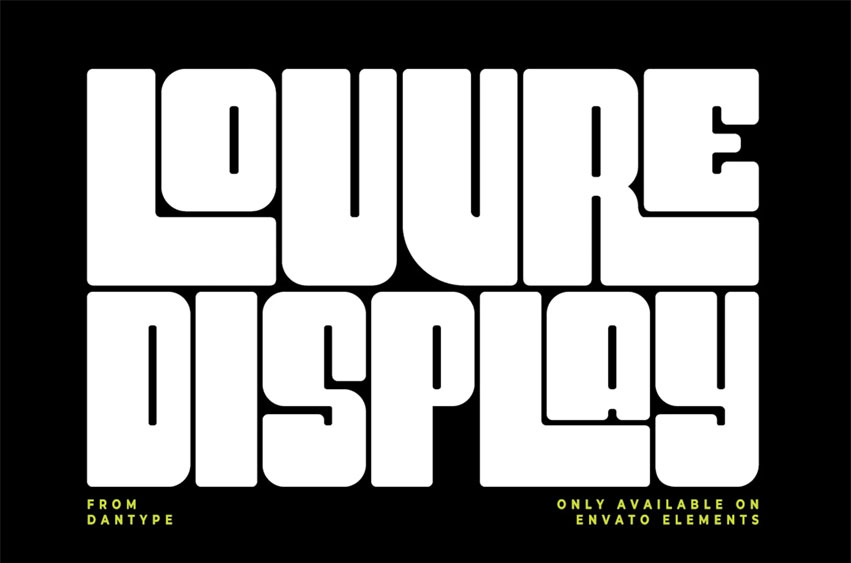
Louvre Font
Louvre Font is a bold display font with strong block shapes and a modern vintage touch. It includes 37 unique ligatures to enhance creativity and style in your designs.
Perfect for posters, logos, album covers, and editorial layouts, Louvre Display makes every project bold, timeless, and eye-catching.
• All caps, Numbers & Punctuation
• 37 Ligatures